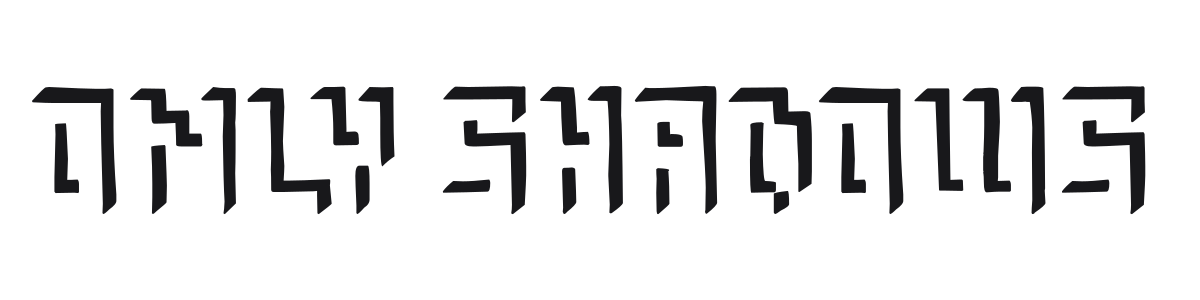
Only Shadows
Only Shadows is a bold stencil font built on a blackletter skeleton, with sharp angular forms broken by deliberate stencil cuts. The gothic structure gives it a dark, aggressive presence that sits somewhere between medieval manuscript and street-art spray can. Works best at large sizes where the stencil gaps read as texture rather than interruption.